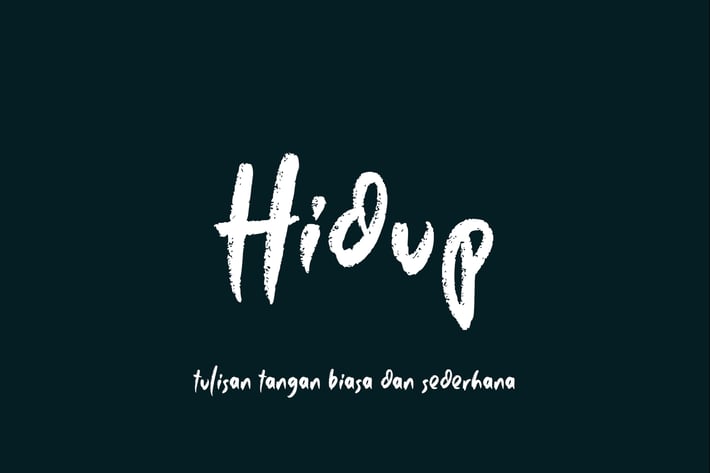
Hidup - Rough Textured Display Font
Hidup // Rough Textured Display Font
Hidup is a cool, rough-textured display font. Whatever the topic, this font will be a wonderful asset to your font library, as it has the potential to enhance any creation. Hidup is PUA encoded which means you can access all of the glyphs and swashes with ease!
It has beautiful and well-balanced characters and as a result, it matches a wide pool of designs. Driana Brideth features a varying baseline, smooth lines, gorgeous glyphs, and stunning alternates. Add it to your most creative ideas and notice how it makes them come alive!
Each Font Has:
Stylish Rough Textured Display Font
Unique Swash (Underline)
Special Ligatures
Hidup is a cool, rough-textured display font. Whatever the topic, this font will be a wonderful asset to your font library, as it has the potential to enhance any creation. Hidup is PUA encoded which means you can access all of the glyphs and swashes with ease!
It has beautiful and well-balanced characters and as a result, it matches a wide pool of designs. Driana Brideth features a varying baseline, smooth lines, gorgeous glyphs, and stunning alternates. Add it to your most creative ideas and notice how it makes them come alive!
Each Font Has:
Stylish Rough Textured Display Font
Unique Swash (Underline)
Special Ligatures